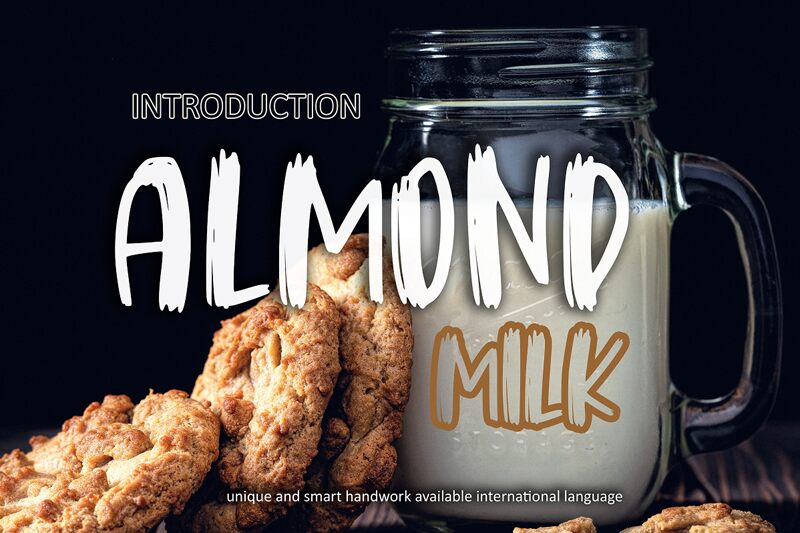
Almond Milk
Almond Milk font is a bold brush typeface designed by Andang.
- a simple script brush -
This font is a stunning script font with additional doodles for you to enjoy.
It is great for branding, packaging, quotes, wedding card, logo, signature, t-shirt designs, tote bag designs,
cards, banners, social media, and anything craft project.